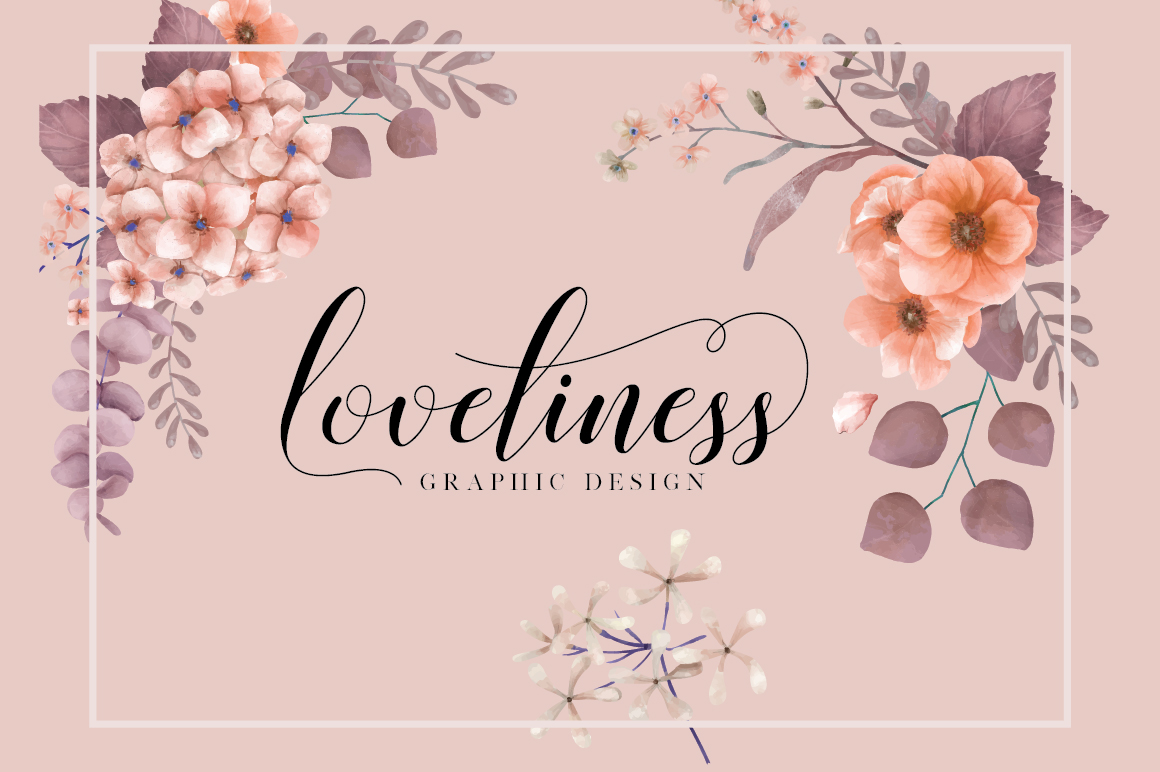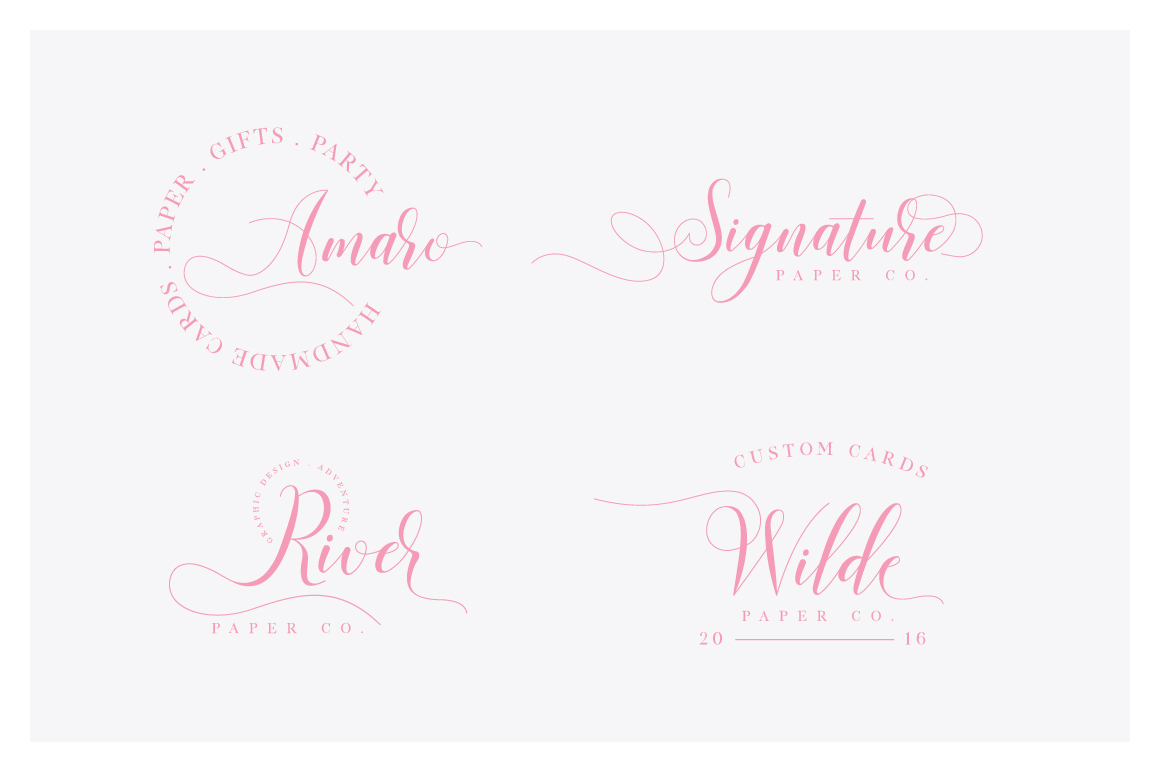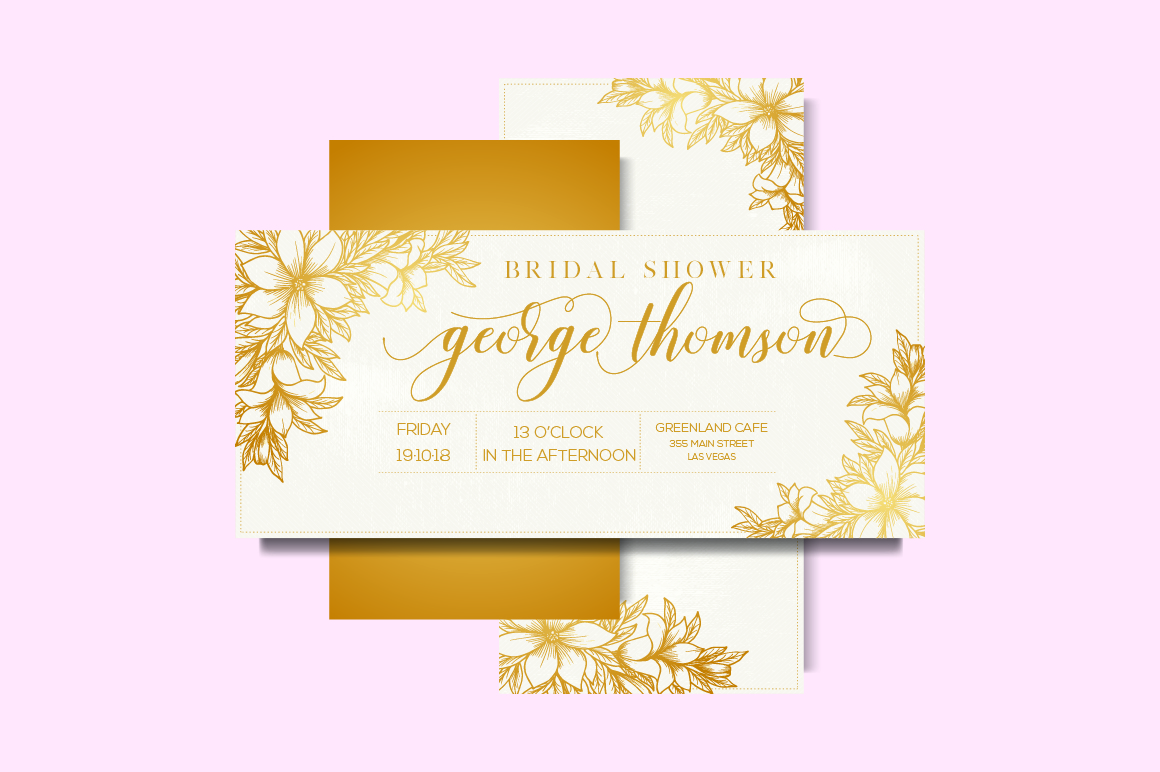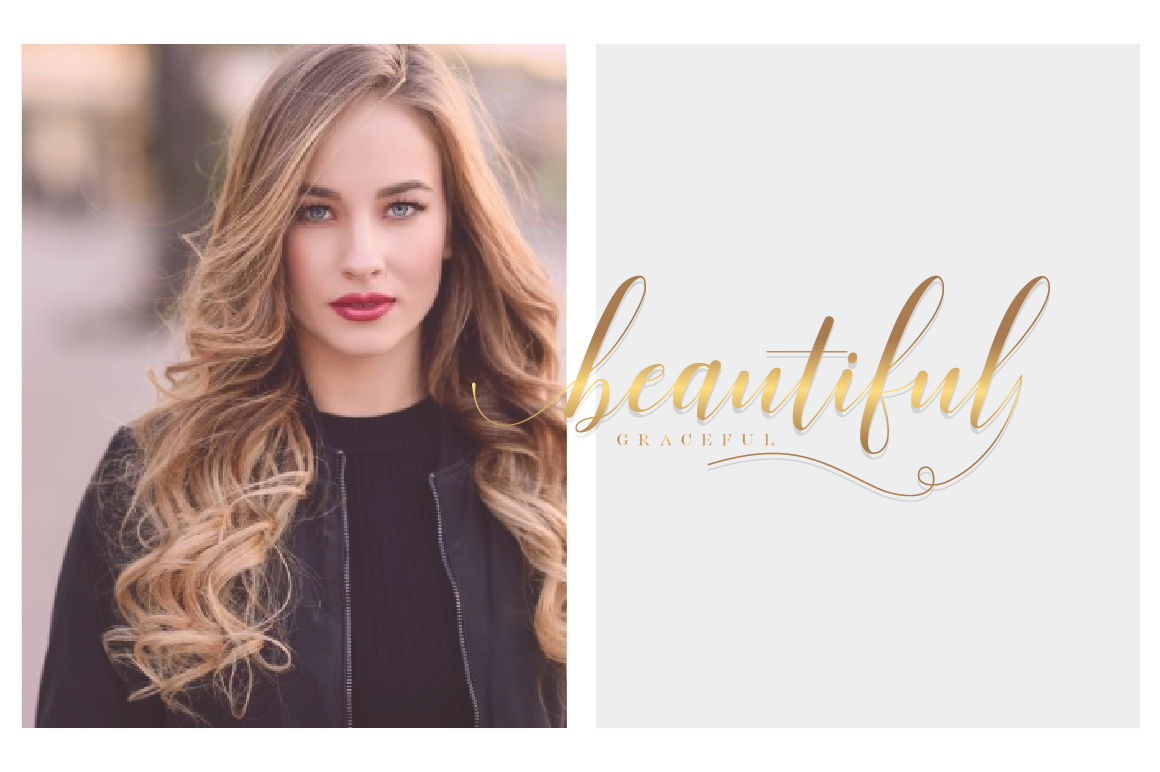
Mariana Oghawa Script Font
A modern calligraphy typeface, with a soft, stylish and distinctive touch. Introducing Mariana Oghawa Font. The Mariana Oghawa, a stylish Font Style. This beautiful script font offers your personal touch to your latest art project with elegant, classy and modern look. The Valencia Script offers gorgeous typographic will perfect for many different project such as logos & branding, invitation, stationery, wedding designs, social media posts, advertisements, product packaging, product designs, label, photography, watermark, special events or anything that need handwriting taste.